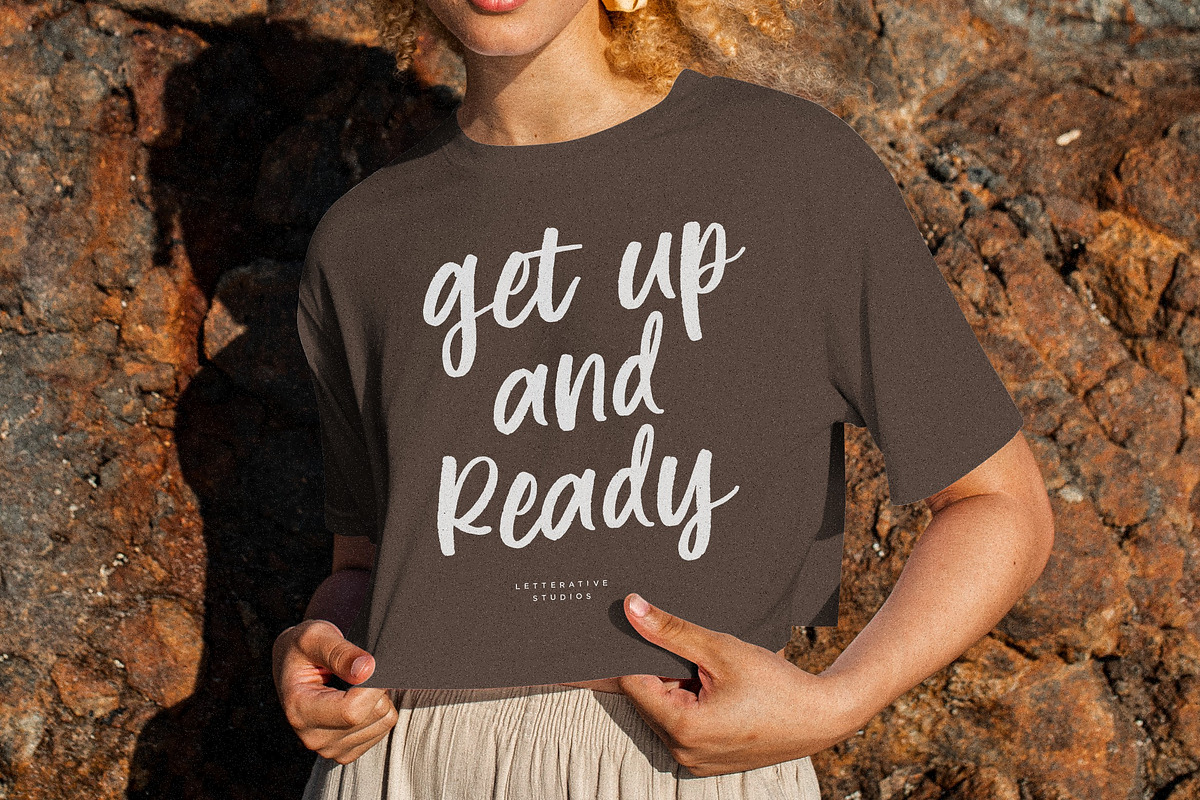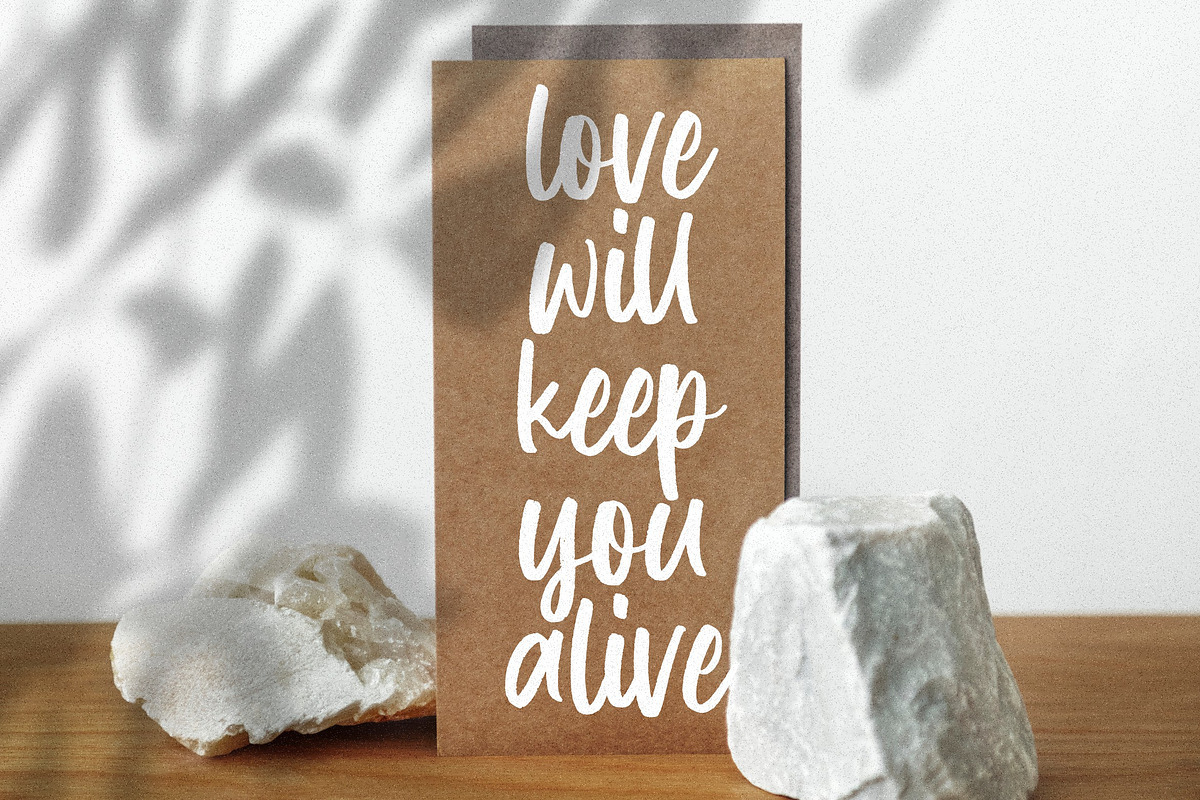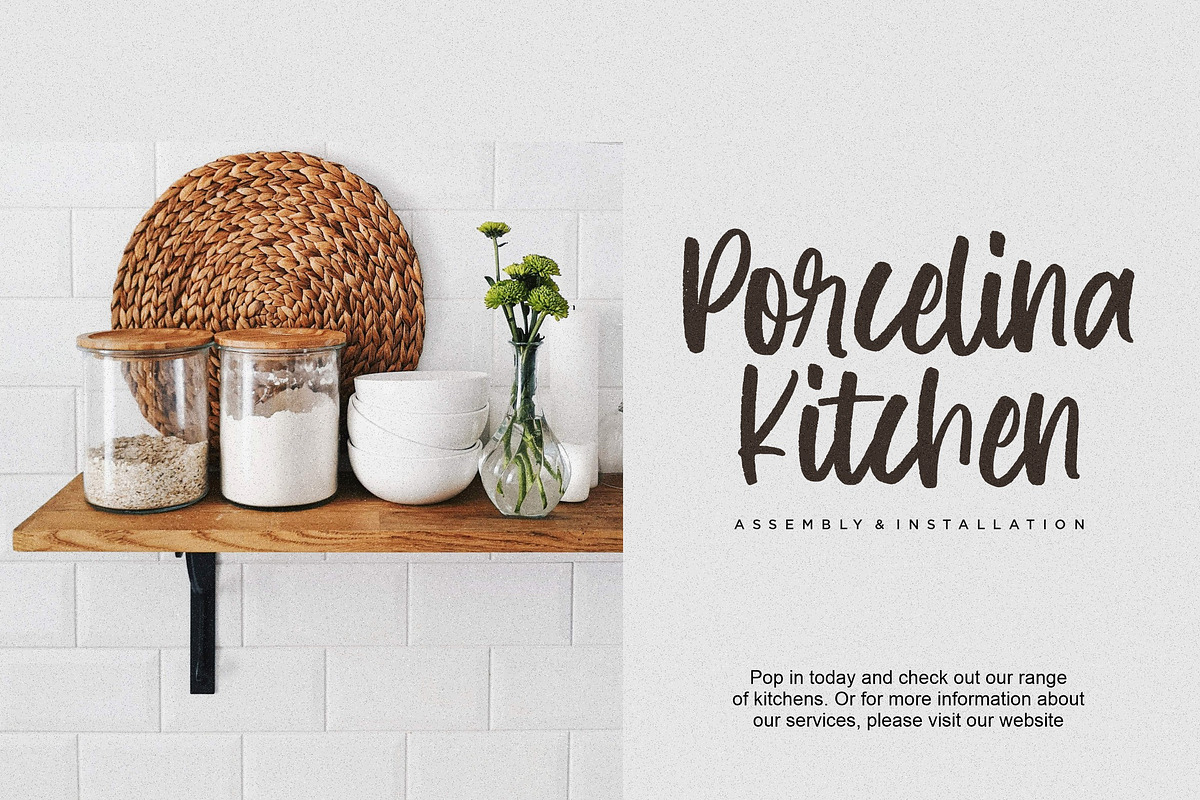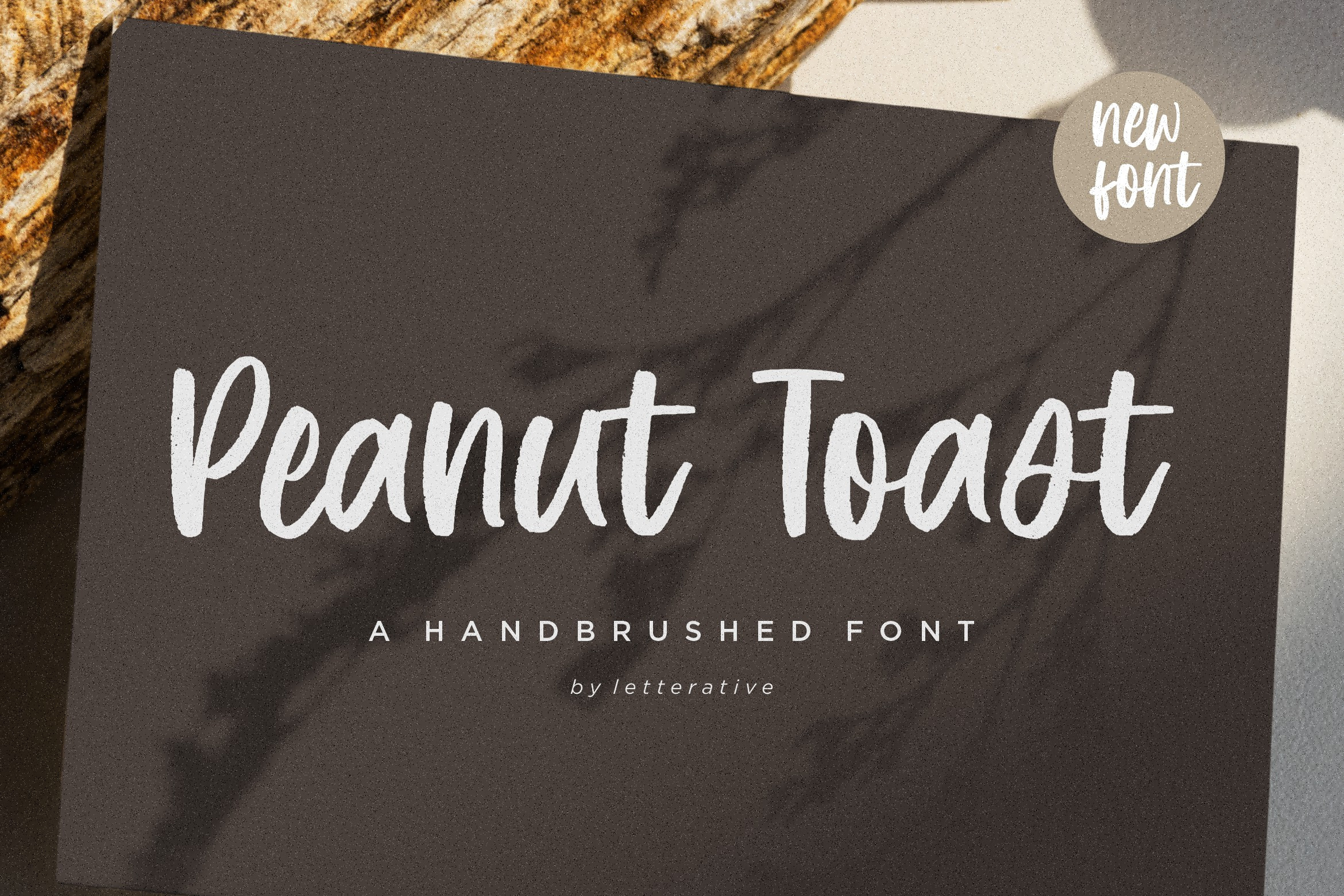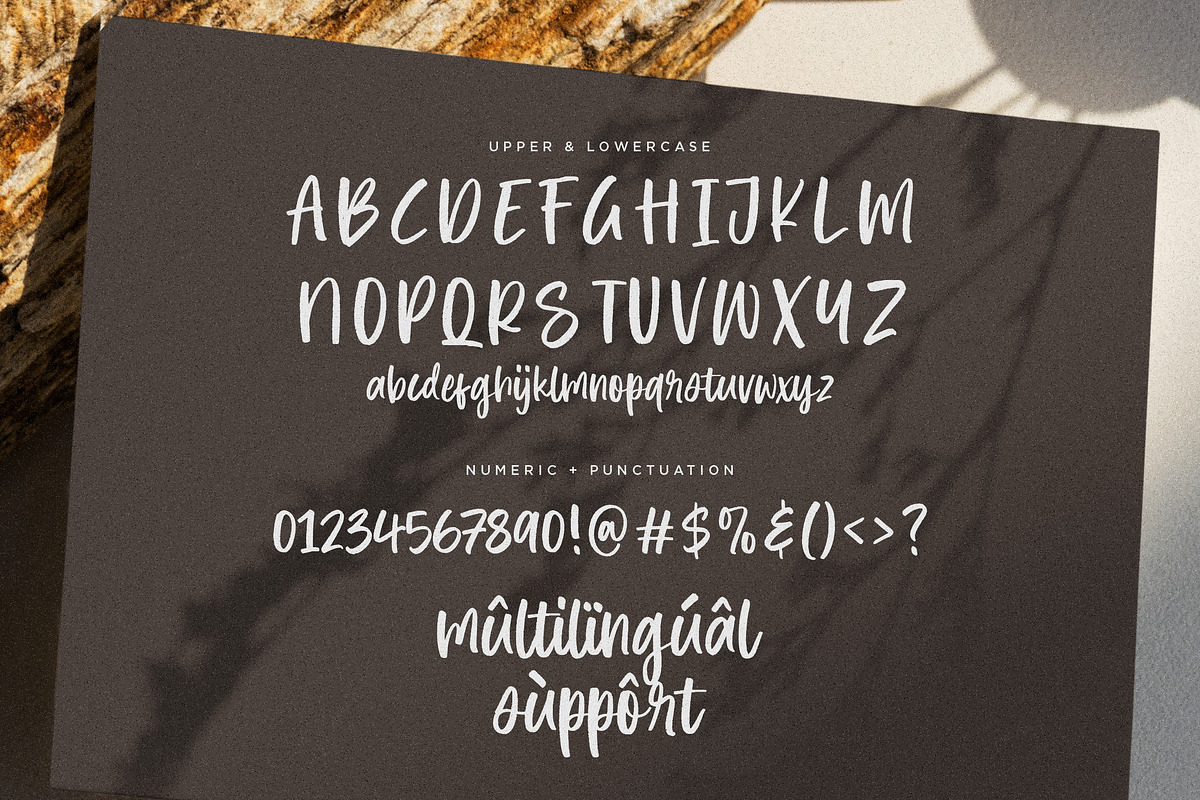
Peanut Toast - Handbrushed Font
Introducing by Letterative Studio : Peanut Toast Font
Peanut Toast is a Handbrushed Font.
Perfect for creating logos, greeting cards, posters, packaging and so much more! Its charming and warm character will help you give your project a truly unique feel.
- also multilingual support